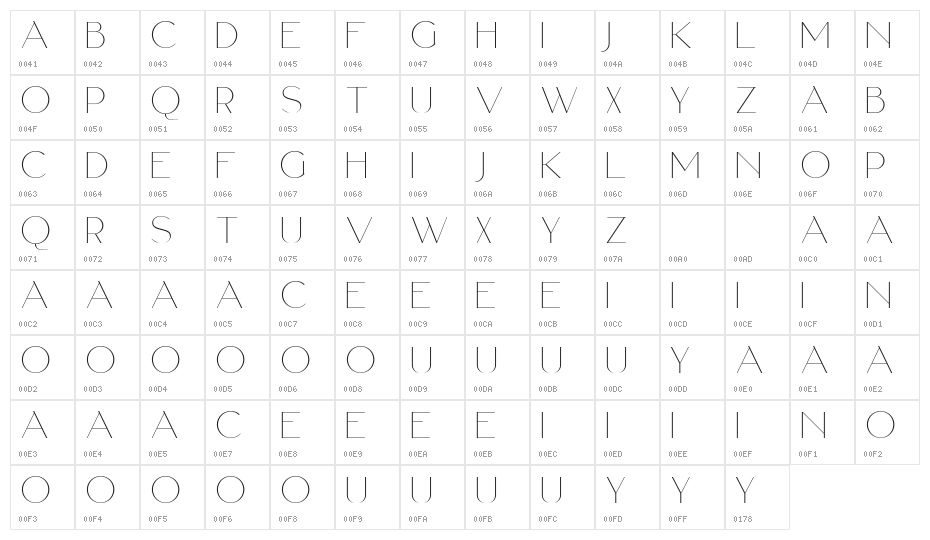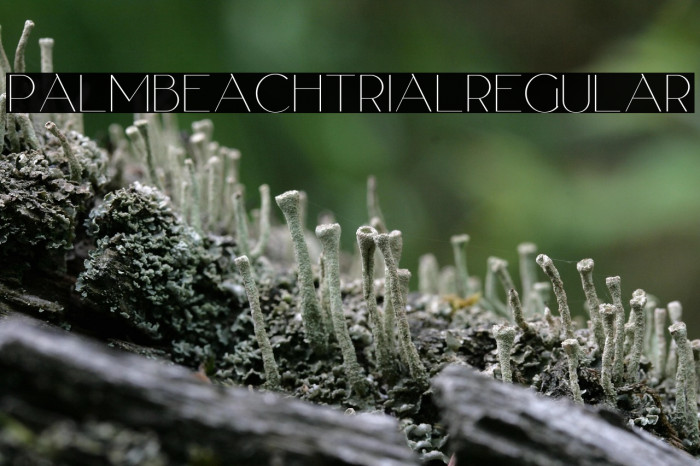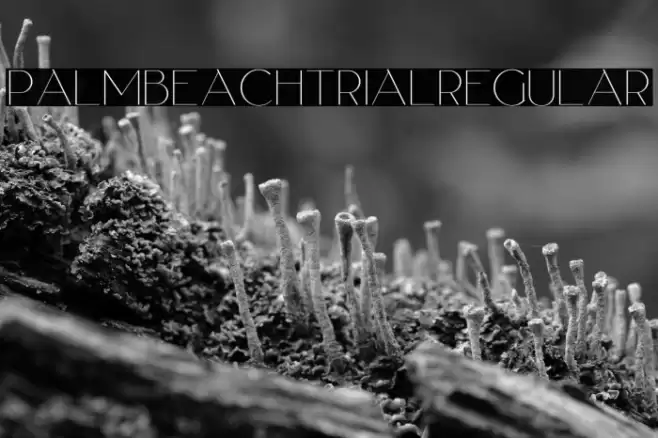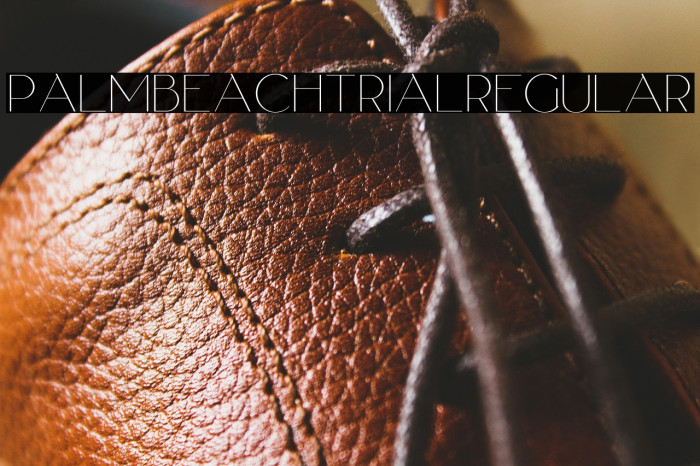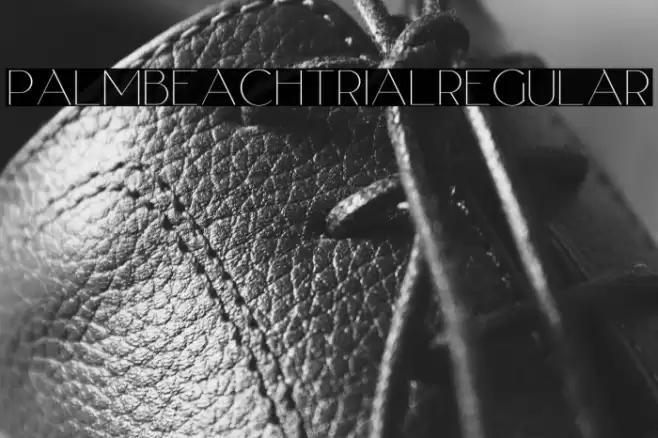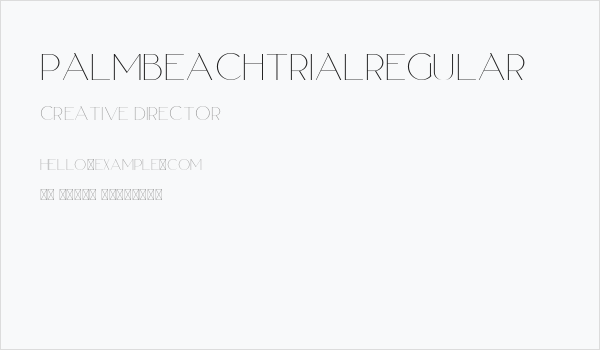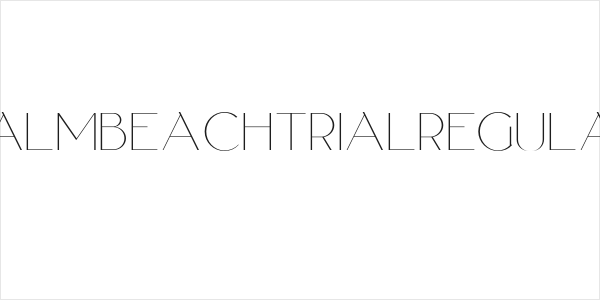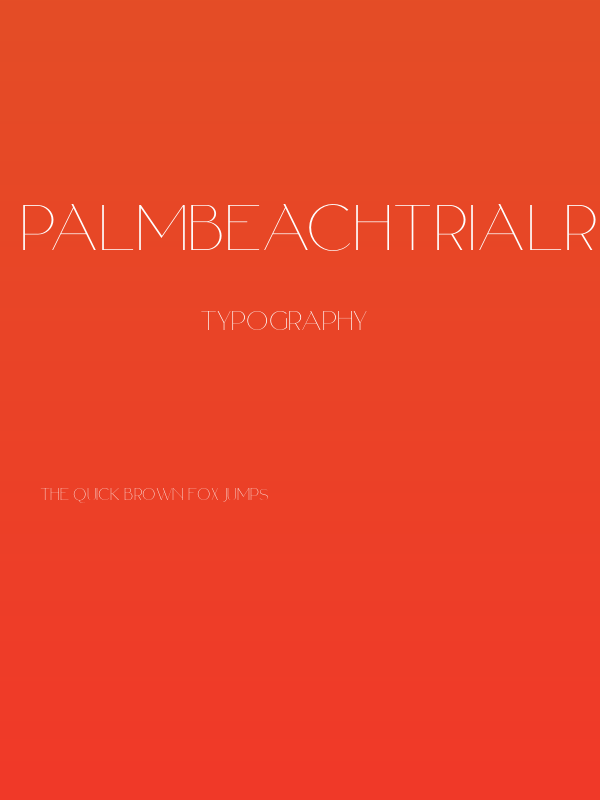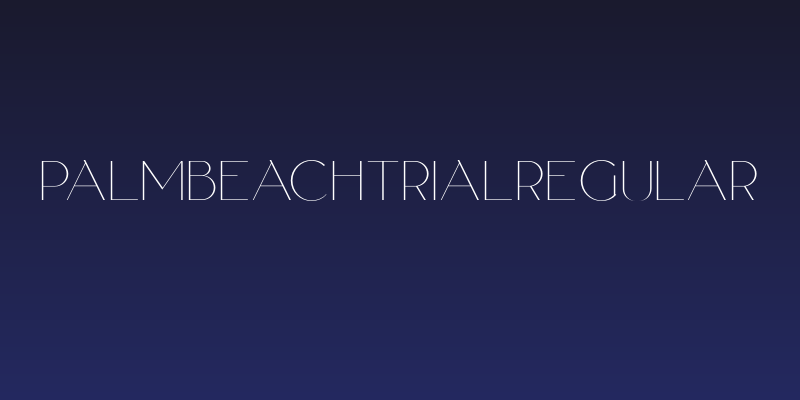
PalmBeachTrialRegular Font
PalmBeachTrialRegular Description
This font features a modern and minimalist design with clean, geometric lines. The uppercase letters are characterized by their thin strokes and sharp angles, creating a sense of elegance and sophistication. The font maintains a consistent stroke width throughout, contributing to its sleek appearance. The characters are well-spaced, ensuring readability while maintaining a stylish look. The absence of serifs adds to its contemporary feel, making it suitable for a variety of design applications. The font's simplicity and precision make it ideal for projects that require a modern and professional aesthetic.
| Use Case | Headlines, Logos, Editorial Design |
| Proposed Projects | Ideal for branding, editorial design, logos, and modern web design projects. |